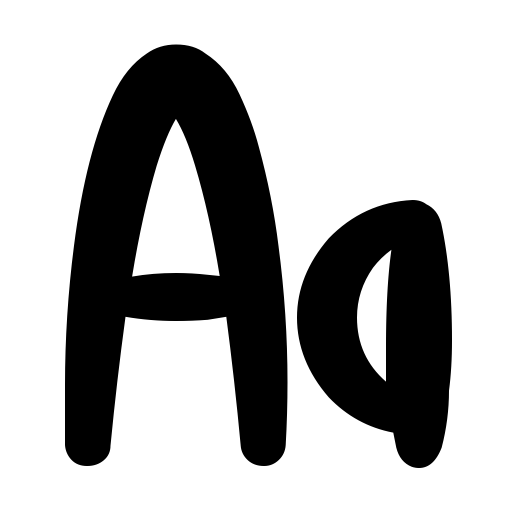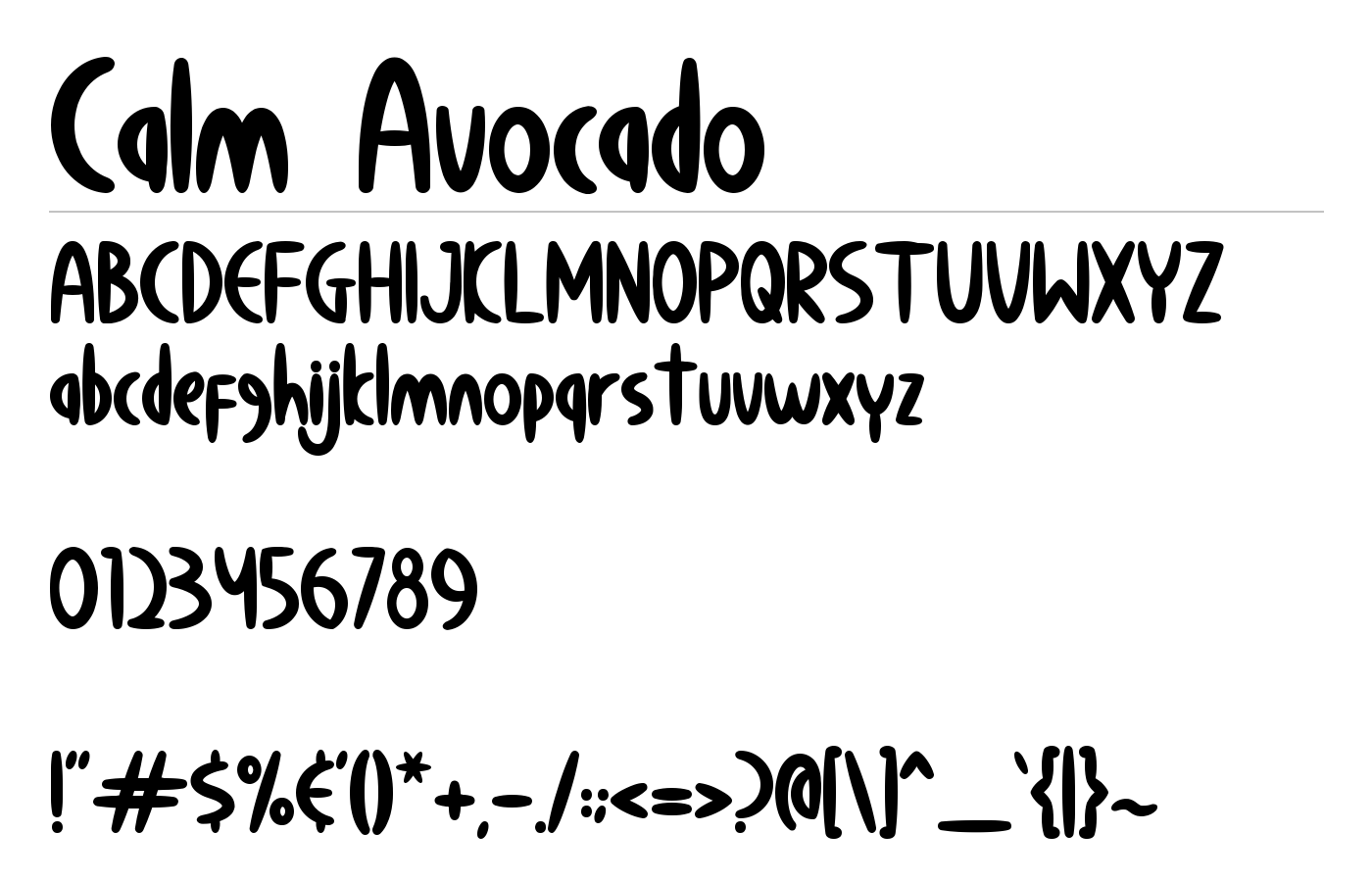
Calm Avocado is a playful and casual sans serif font with a hand-drawn feel, featuring rounded, slightly irregular letterforms that give it a friendly and approachable vibe. Its moderate weight, readable proportions, and quirky style make it ideal for creative projects, children’s materials, or brands seeking a fun and informal personality. This font works best in headlines, logos, and packaging where a warm, personal touch is desired.
Calm Avocado Font
About Calm Avocado Font
| Designer | Hadjar Creative |